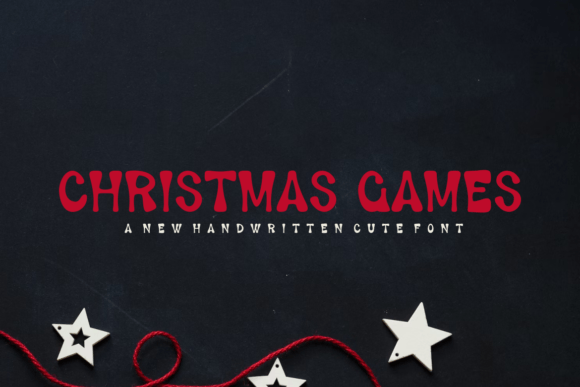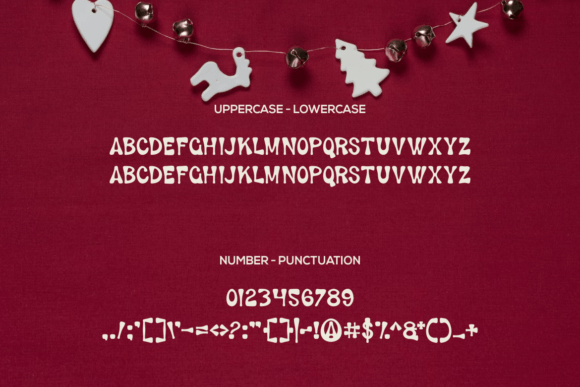
Introduction to Christmas Games Font
As you sit down to create this year’s holiday cards, decorations, or gifts, the pressure to make it special can be overwhelming. You’ve got a blank canvas staring back at you, and the clock is ticking. But then, you stumble upon the perfect design resource – a font that captures the essence of the season in all its whimsical glory.
Enter the Christmas Games Font, a delightful display font that’s guaranteed to bring a smile to your face and a touch of festive magic to your creative project. With its high-quality design and transparent background, this font is the perfect addition to any holiday-themed design. And the best part? It’s available for free download, making it a valuable asset for designers of all levels.
Whether you’re a seasoned pro or a design newbie, the Christmas Games Font is sure to inspire your creativity and make your holiday projects shine.
Key Features of Christmas Games Font
- High-quality design resource ideal for creative projects, especially during the holiday season.
- Unique characteristics: festive and playful design elements, perfect for adding a touch of holiday cheer to your creative project.
Honest Review: Christmas Games Font
I recently came across the Christmas Games Font, and I’m excited to share my thoughts on this design resource. As a designer, I appreciate a well-crafted font that can elevate a creative project.
What works well: ✨ The font has a playful and festive feel, making it perfect for holiday-themed projects. The high quality of the design is evident, with crisp lines and clear letterforms. The transparent background allows for easy layering and composition.
However, I do have a few concerns: ⚠️ The font may not be suitable for large-scale commercial projects due to its playful and festive nature. Additionally, the font is quite bold and may not be ideal for subtle or sophisticated designs.
Overall impression: The Christmas Games Font is a great addition to any designer’s toolkit. Its playful and festive feel makes it perfect for holiday-themed projects, and its high quality ensures that it will look great on any medium. With some careful consideration of its limitations, this font can be a valuable resource for designers looking to add some holiday cheer to their creative projects.
How to Use Christmas Games Font
Introduction to Christmas Games Font
The Christmas Games Font is a high-quality design resource perfect for creating festive and fun graphics for your creative project. With a transparent background, this font is ideal for use in various design applications.
Tips for Getting the Most Out of Christmas Games Font
To get the most out of the Christmas Games Font, use it in conjunction with other design elements, such as images and graphics. Experiment with different font sizes, colors, and styles to create a unique look.
The Christmas Games Font is perfect for use in holiday-themed projects, such as Christmas cards, gift tags, and party invitations. It’s also great for use in creative projects, such as blog posts, social media graphics, and marketing materials.